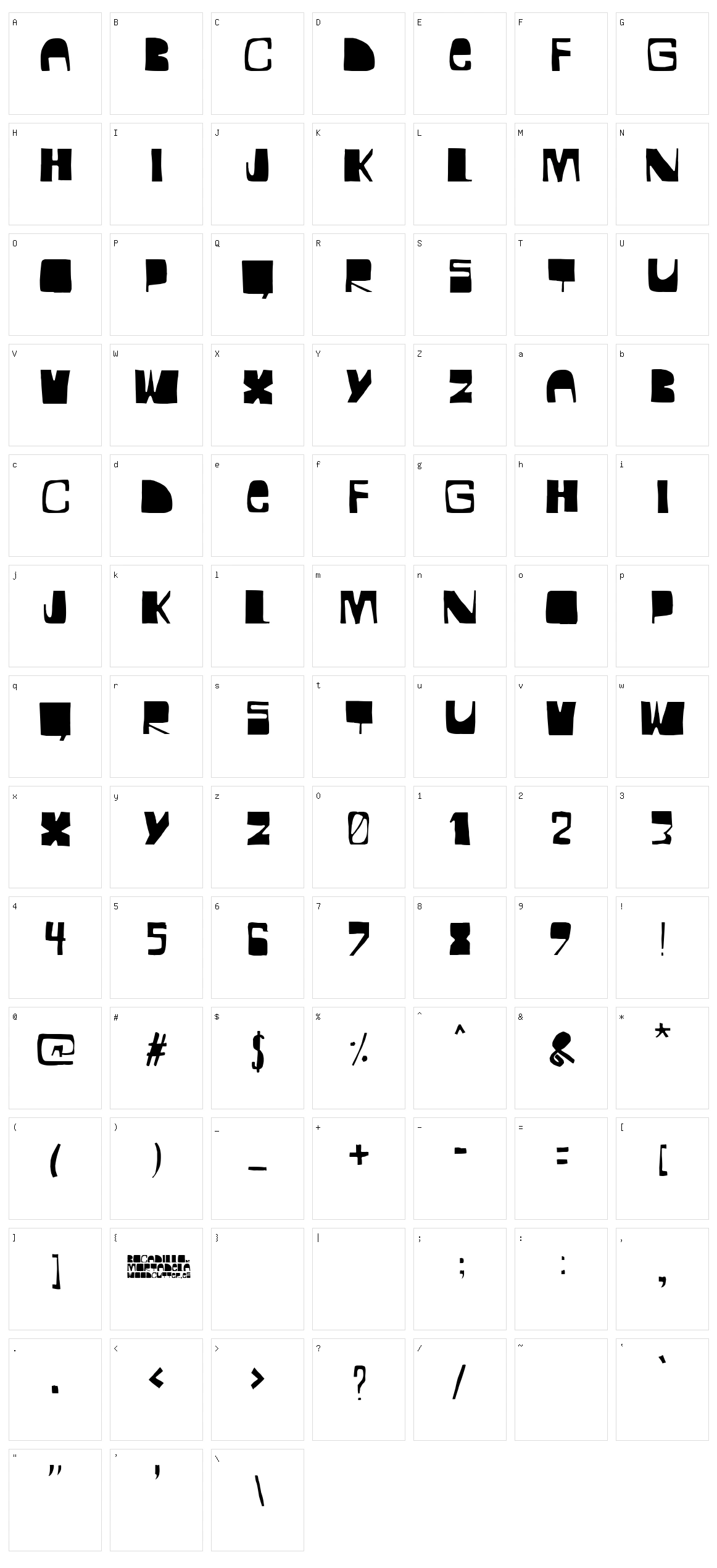
The free font Bocadillo De Mortadela is carefully designed by Woodcutter, showcasing a thoughtful balance of creativity and usability and falls under the Cartoon font style. When you download the ZIP file, it contains only 35.11 KB of font files, making it lightweight and quick to download. Please review the license details below to understand permitted usage and distribution rights. If license information is not available, we recommend using this font for personal projects only or contacting the author directly for commercial usage permissions.